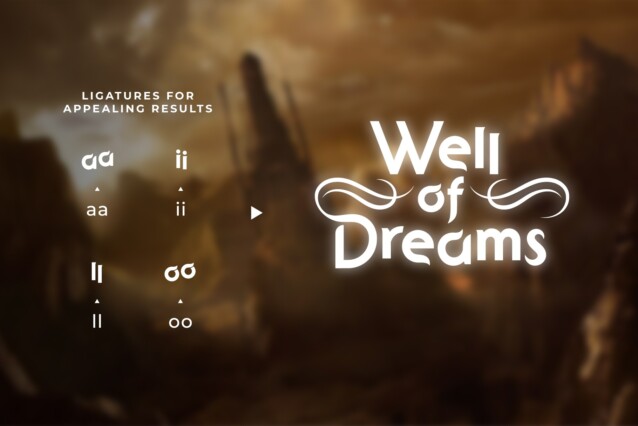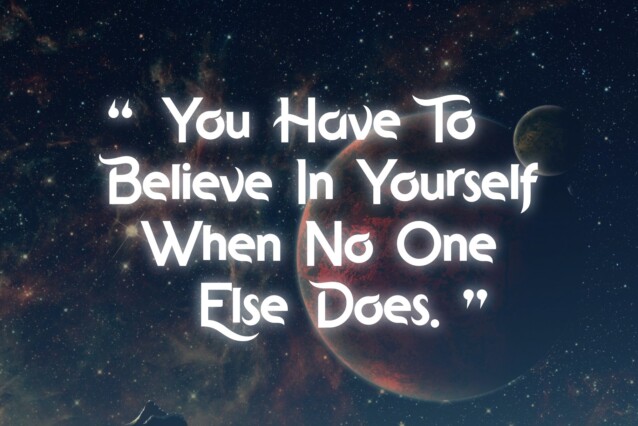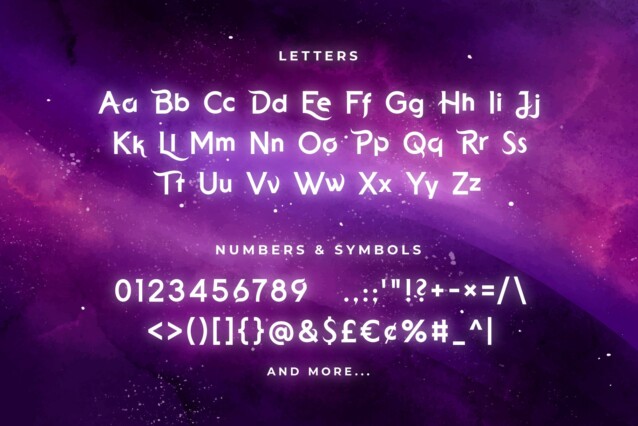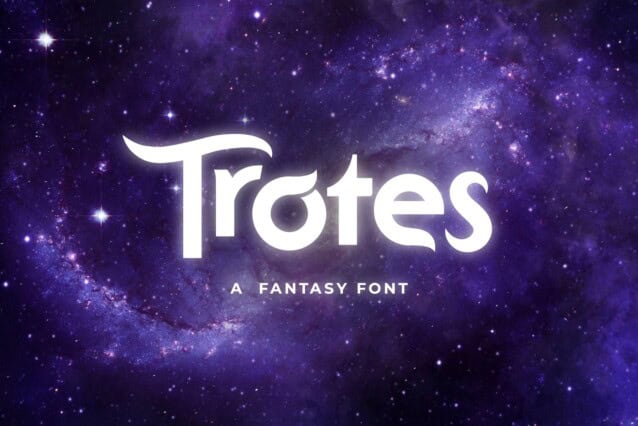
Trotes Font
Trotes Font is a retro and stylish display font crafted & designed by FG Studios. It is suitable for logotype, headline font, in corporate identity, brand identity, apparel industry, poster, music, movie, game, magazine, book, comic, cartoon, YouTube, Instagram, website, or any of your creative design projects.